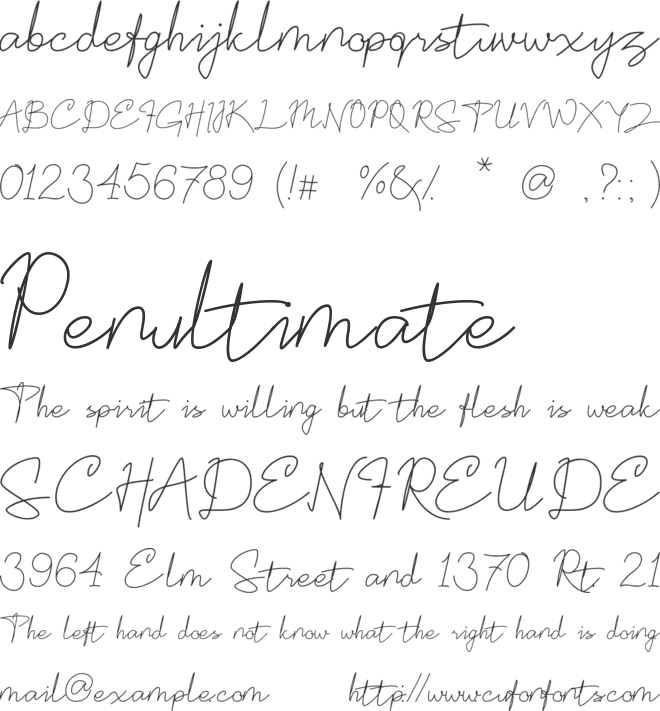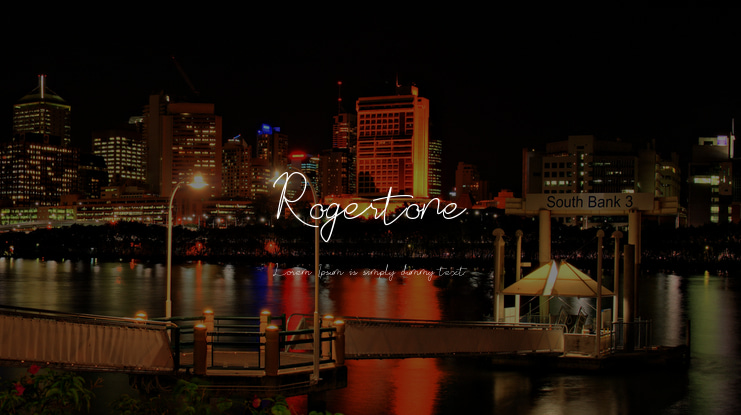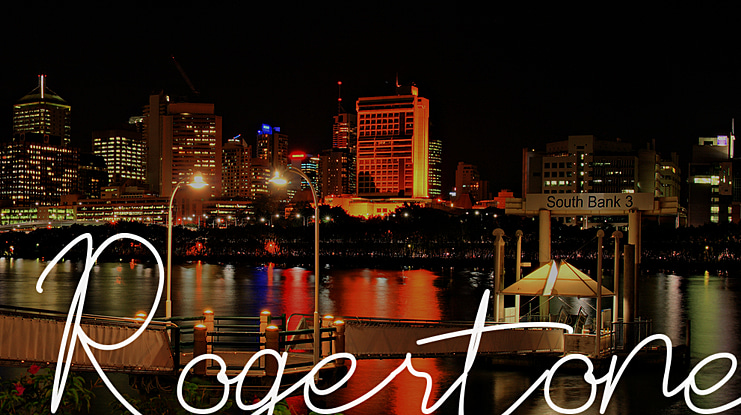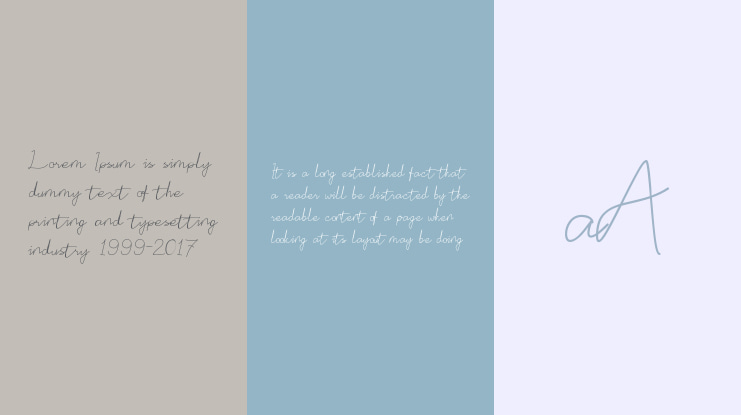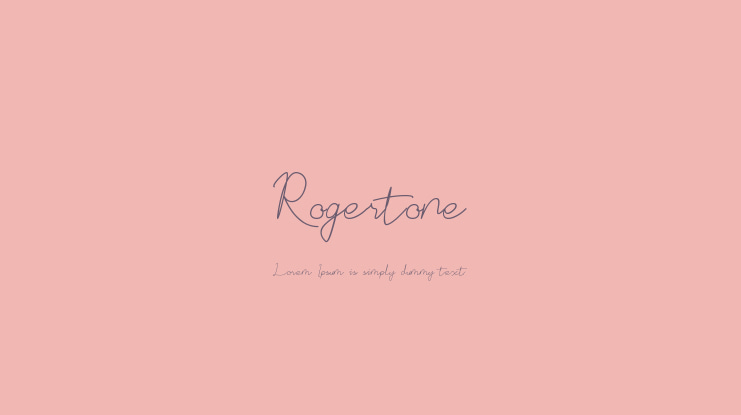
Rogertone Font
Rogertone Signature Script is a font that has a signature style which is a type of family script font. each typographic and ligature section in this font represents signature characteristics such as the use of uppercase letters at the beginning of writing, which gives an interesting impression, then a series of continuous small letters that flow with the same rhythm, and end with a long horizontal line and firm, allowing you do titling and swash easily.
This font also represents the characteristics of handwriting, which is a combination of basic fonts with different curves and shapes, so it will look natural and real. It is suitable for crafts, photography, watermarks, fashion, social media posts, advertisements, logos & branding, invitations, product designs, labels, stationery, product packaging, special events, etc.